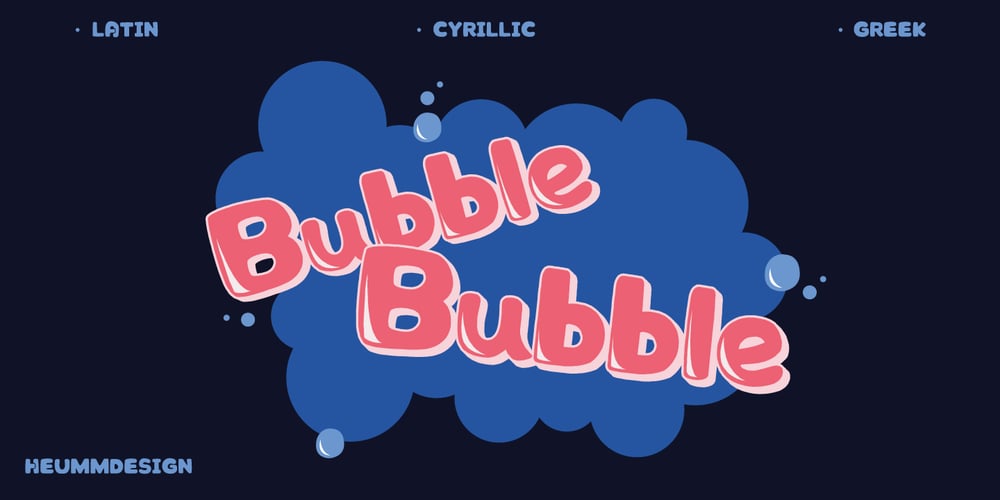
HU Bubble
HU Bubble font
HU Bubble Font Family was designed by Haerin Lee, SangHyeon Park and published by Heummdesign. HU Bubble contains 2 styles and family package options. EnglishHU Bubble is a funky and playful font with variation in the thickness of strokes which make it look rhythmical and cute. Just by using HU Bubble, you can make retro and cheerful vibes at the same time. There are 3 language versions, basic latin, cyrillic and greek, and 2 types of style, basic black type and special type with shining patterns in it. GreekΤο HU Bubble είναι μια funky και παιχνιδιάρικη γραμματοσειρά με παραλλαγή στο πάχος των πινελιών που το κάνουν να φαίνεται ρυθμικό και χαριτωμένο. Μόνο χρησιμοποιώντας το HU Bubble, μπορείτε να δημιουργήσετε ταυτόχρονα ρετρό και χαρούμενα vibes. Υπάρχουν 3 εκδόσεις γλώσσας, βασικά λατινικά, κυριλλικά και ελληνικά, και 2 τύποι στυλ, βασικός μαύρος τύπος και ειδικός τύπος με λαμπερά σχέδια σε αυτό.CyrillicHU Bubble – это забавный и игривый шрифт с различной толщиной штрихов, которые делают его ритмичным и милым. Просто используя HU Bubble, вы можете создать атмосферу ретро и веселья одновременно. Существует 3 языковых версии: базовый латинский, кириллица и греческий, а также 2 стиля стиля: основной черный шрифт и специальный шрифт с блестящими узорами.